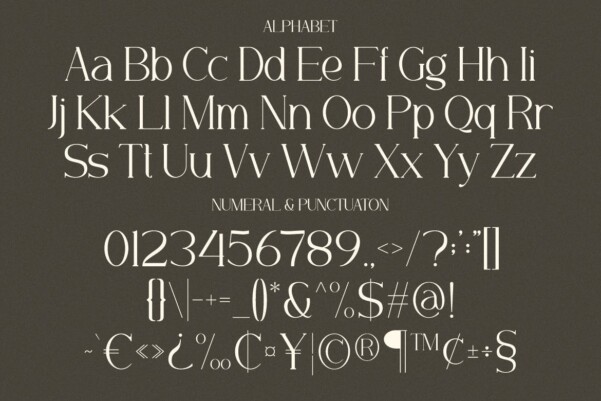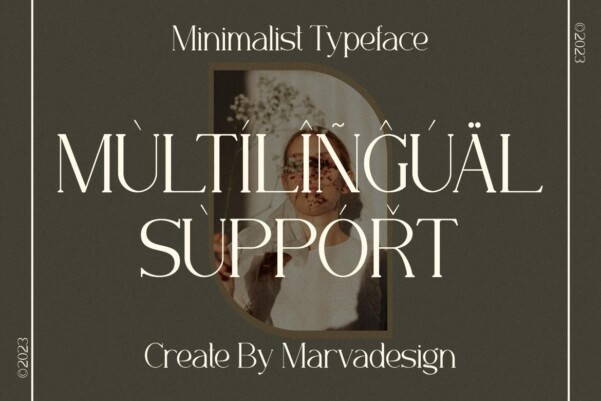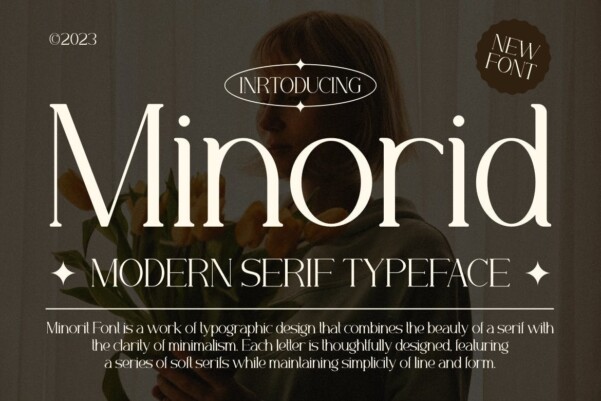
Minorid Font
Minorid Font – a Modern Serif Font authentic display font. The font is suitable for any branding project like logo, Template Design, Product and many more. outstanding in a wide range of contexts.